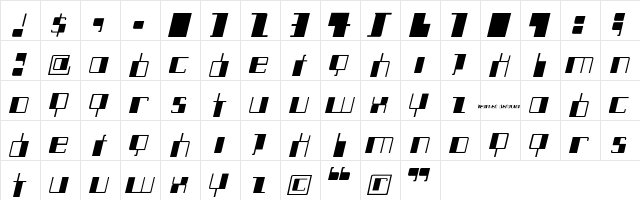
LearnedBehavior Regular
Design Context for LearnedBehavior Typeface
LearnedBehavior is a composed and adaptable typeface that performs quietly and consistently across a wide range of design contexts.